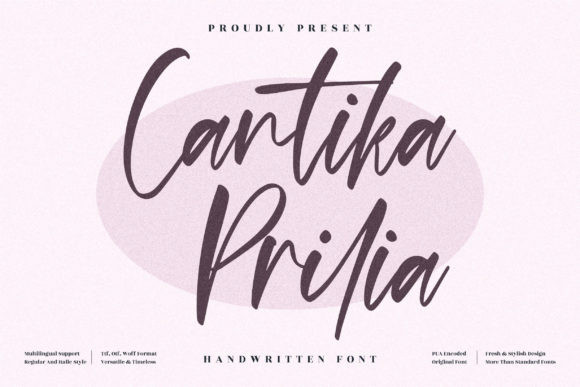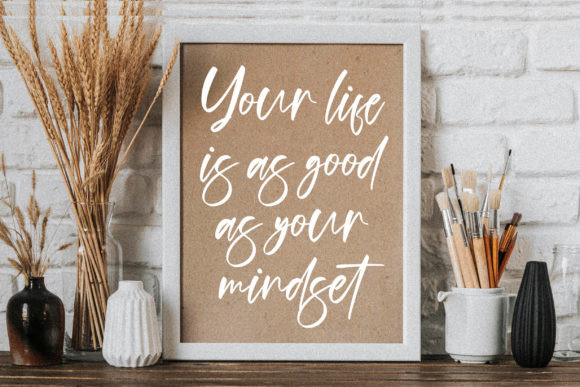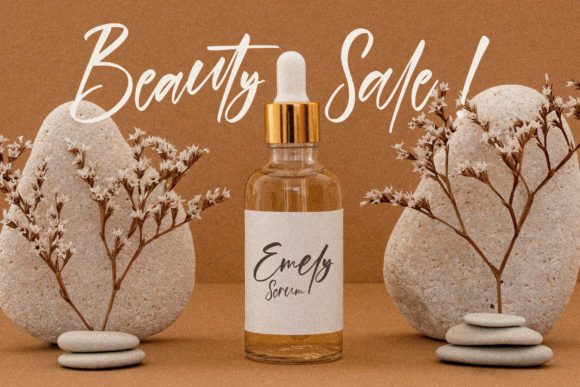
Cantika Prilia Font
Cantika Prilia is a whimsical script font with a relaxed theme, featuring a lovely style. No matter the topic, this font will be an incredible asset to your fonts’ library, as it has the potential to elevate any creation.